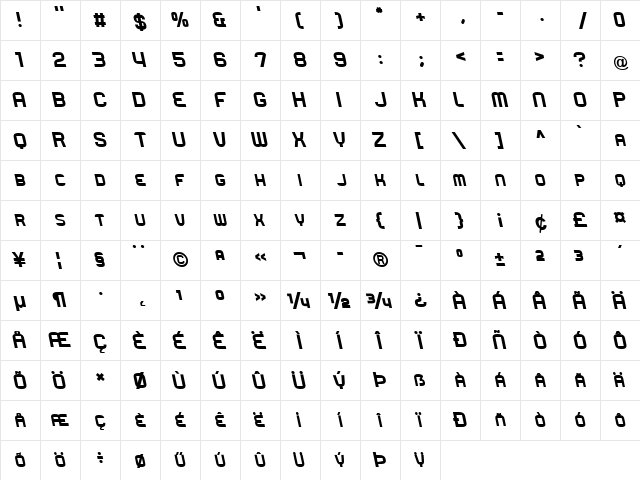
Rueck Left Regular
| Foundry | Peter Wiegel |
| Designer | Peter Wiegel |
Design Context for Rueck Left Typeface
Rueck Left offers clean, dependable letterforms without strong stylistic allegiance, making it a practical choice for designers who need flexibility.